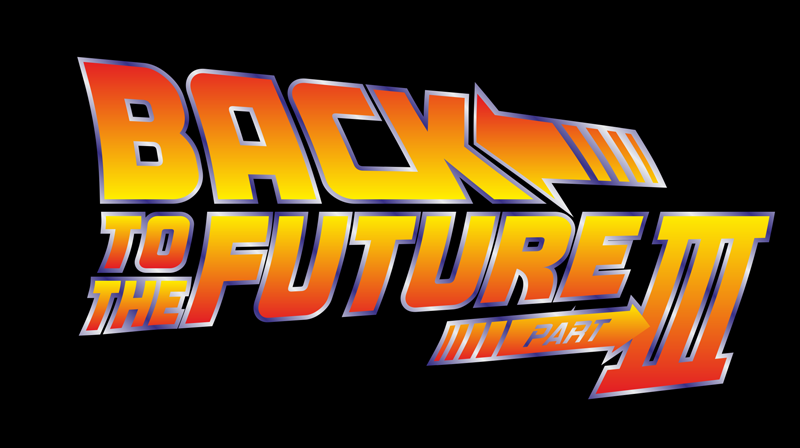
Preview and download Marty Font. Created by Dietrich Kerner in Basic Sans serif styles with Donationware license.
Hi Back to the Future fans, with the help of my Marty font you can create a logo like the one attached. The font and the logo are created with CorelDraw. This font is for personal use ONLY and donationware, that means if you like my font and would like to donate an amount of your choice, please don't hesitate to do that. My PayPal and contact address is DietrichKerner@web.de. Any feedback to my fonts is welcome. Thank you. |